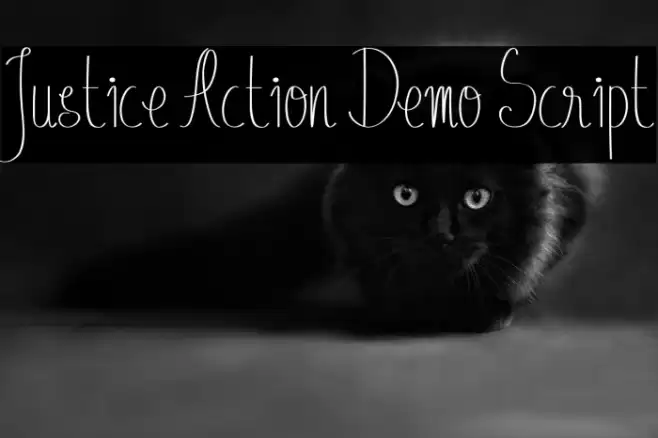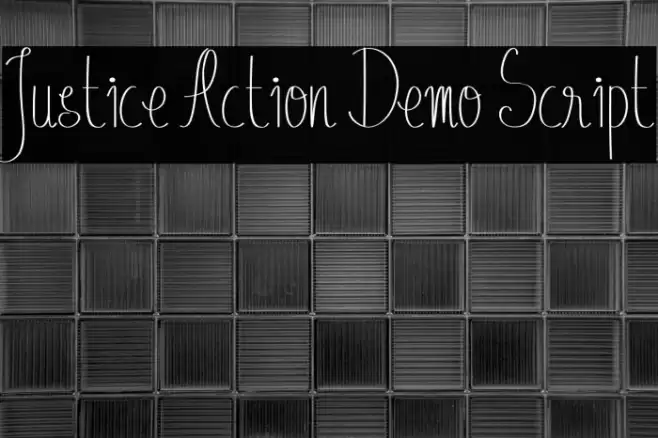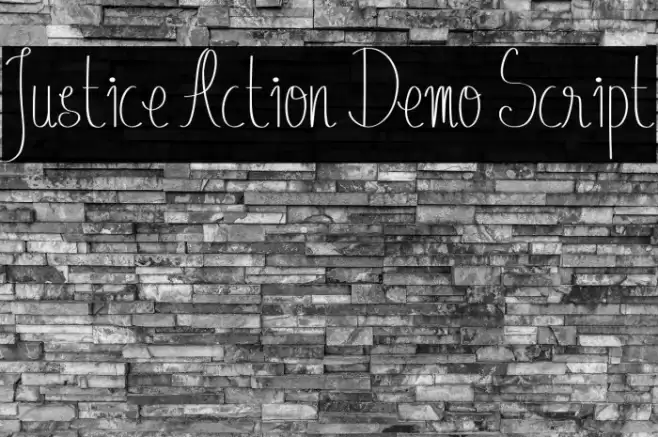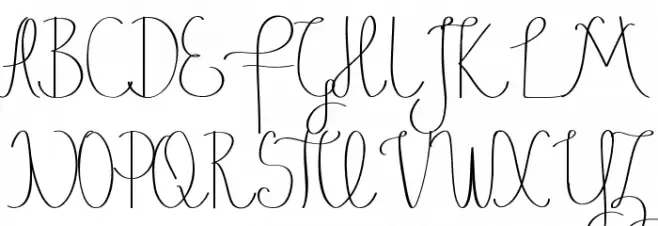
Justice Action Demo Script Font
Justice Action Demo Script Description
This font features an elegant and flowing script style, characterized by its thin, delicate lines and graceful curves. The uppercase letters are particularly ornate, with extended loops and swirls that add a sense of sophistication and flair. The lowercase letters maintain a consistent style, with a slightly more restrained design that complements the uppercase characters. The numbers and special characters follow the same aesthetic, ensuring a cohesive look across all text elements. This font is ideal for projects that require a touch of elegance and refinement, such as wedding invitations, formal event programs, or high-end branding materials.
An elegant script font with thin lines and graceful curves, perfect for sophisticated designs from Regular fonts.
- Proposed Projects: Wedding invitations, formal event programs, luxury branding materials, elegant stationery.
- Weight: Light
- Overall Style: Elegant
- Use Case: Headlines, Invitations, Branding